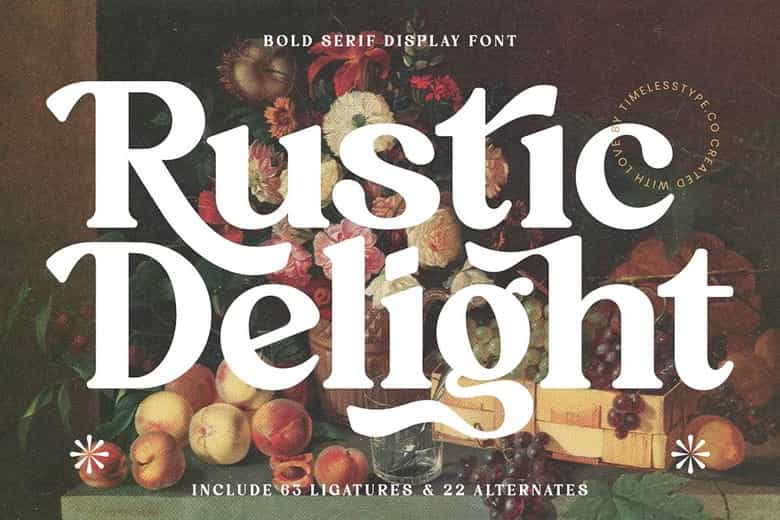
Discover Rustic Delight Font, part of the Serif Display collection—a versatile and unique font perfect for adding a personal touch to your projects. Download it for free and enjoy crafting designs with style, from invitations to social media posts. This font is available exclusively for personal use, giving you the freedom to create without limits. Unlock your creativity with Rustic Delight Font today!
Rustic Delight is a vintage serif font that comes with a bold design from timelesstype.co that features a Roman classic and decorative serif. Suitable for any projects such as: logos, branding projects, homeware designs, product packaging, mugs, quotes, posters, shopping bags, t-shirts, book covers, name card, invitation cards, greeting cards, label, photography, special events, and all your other luxury and beautiful projects.